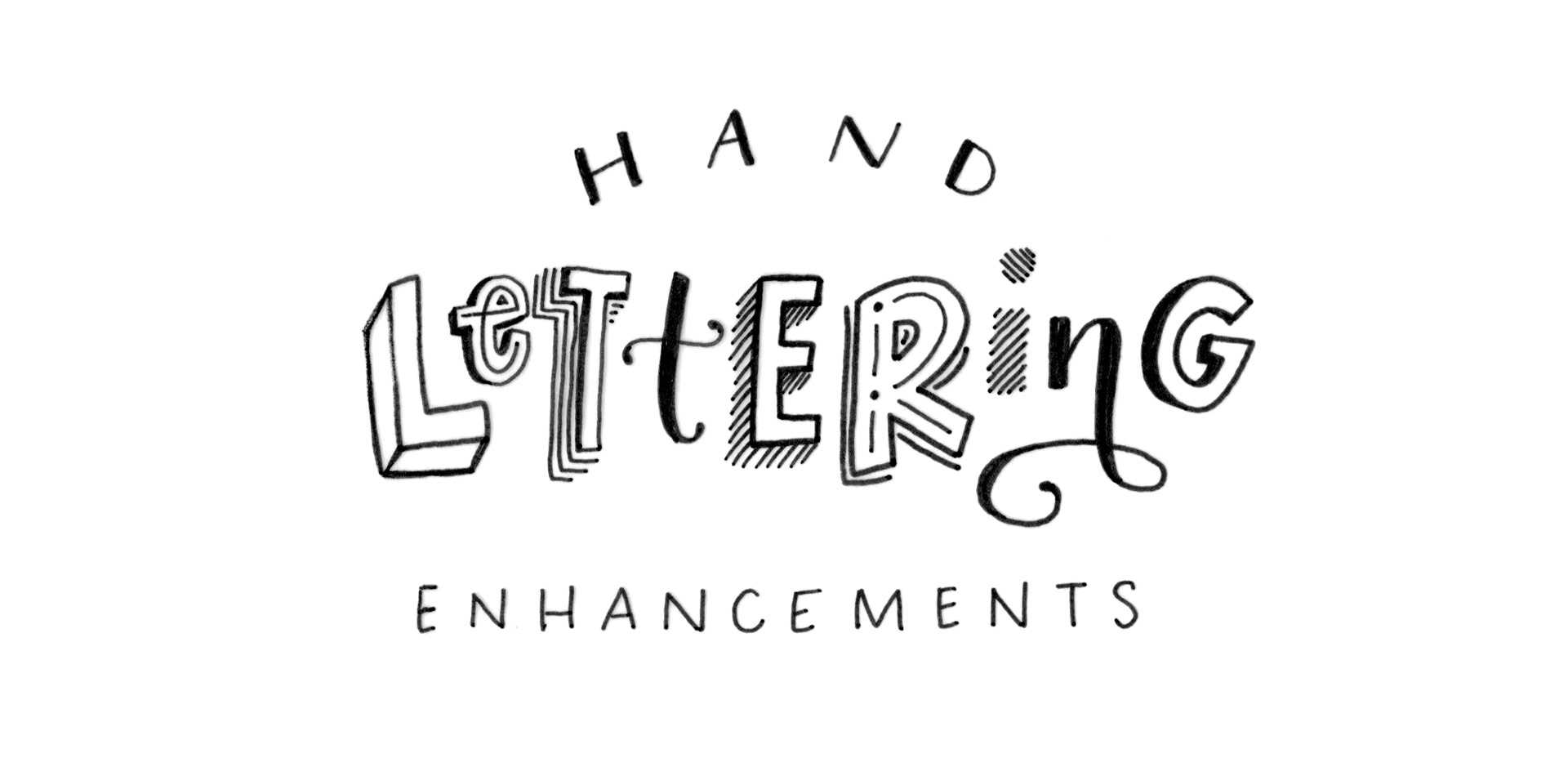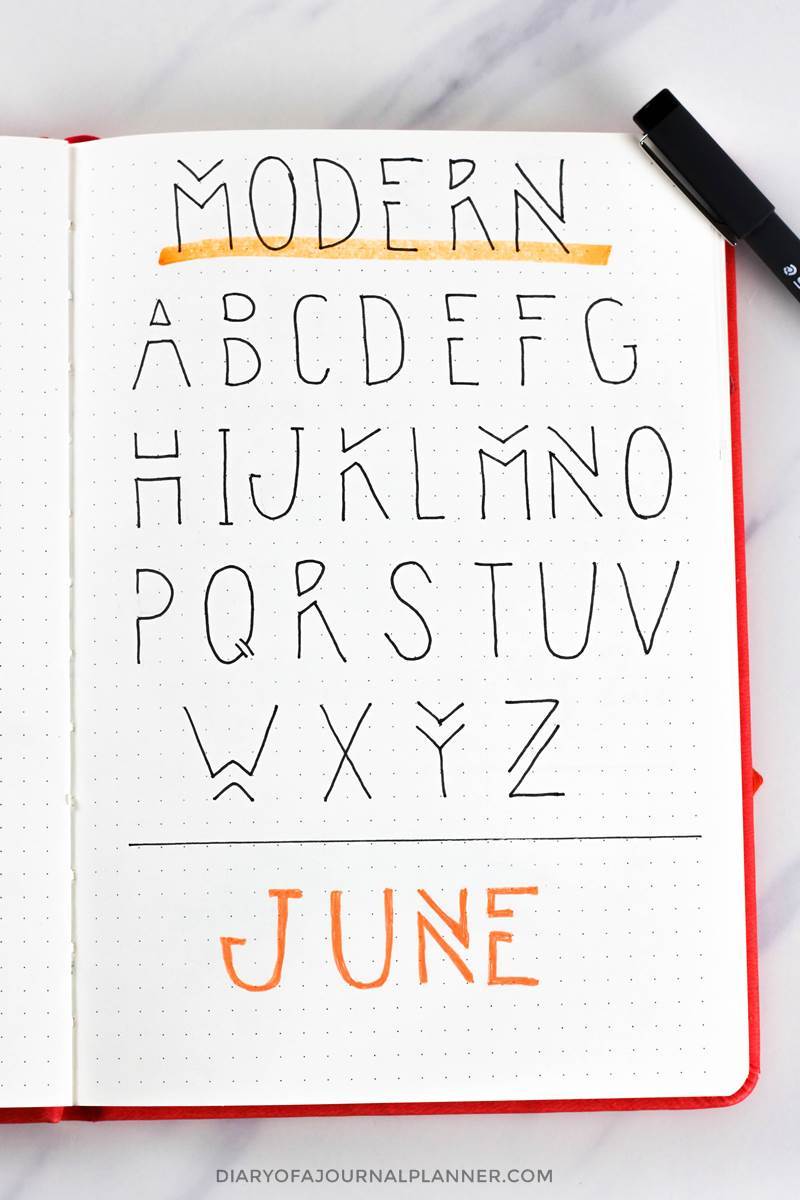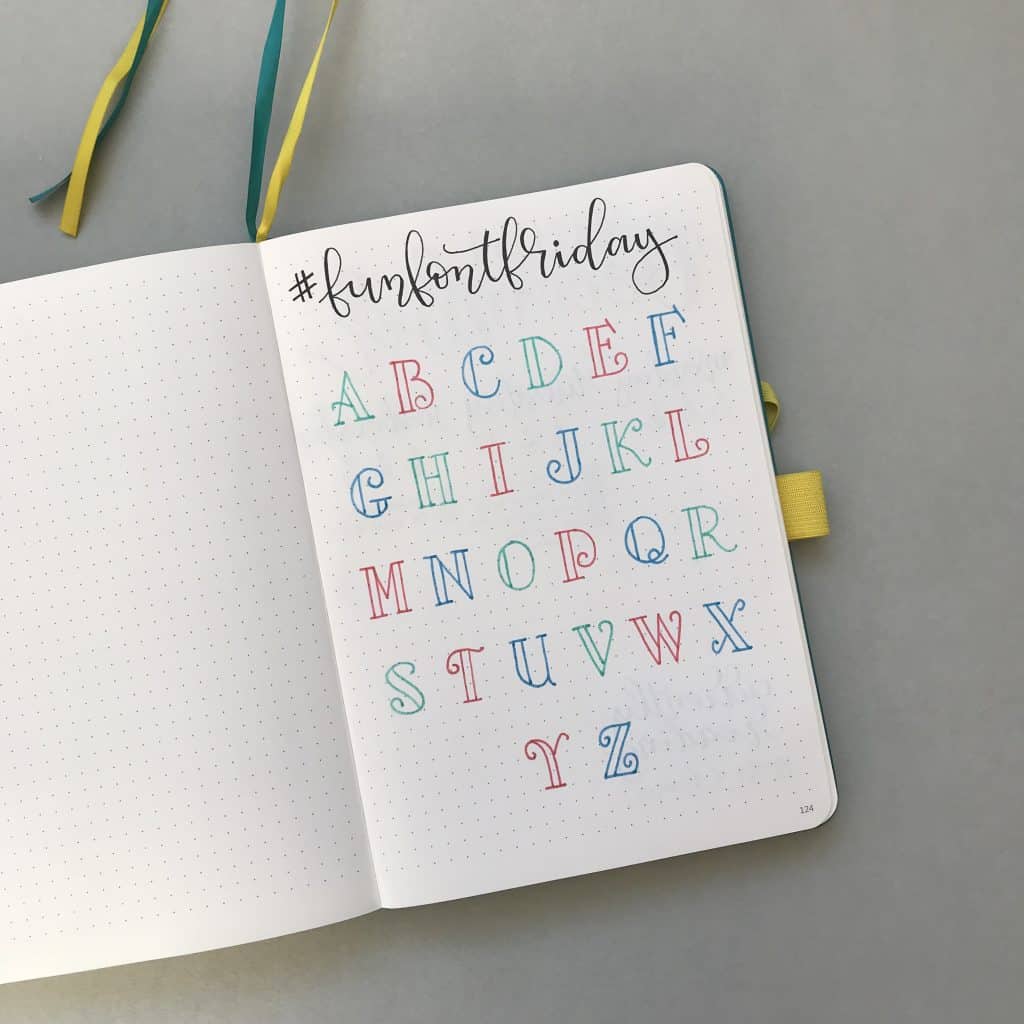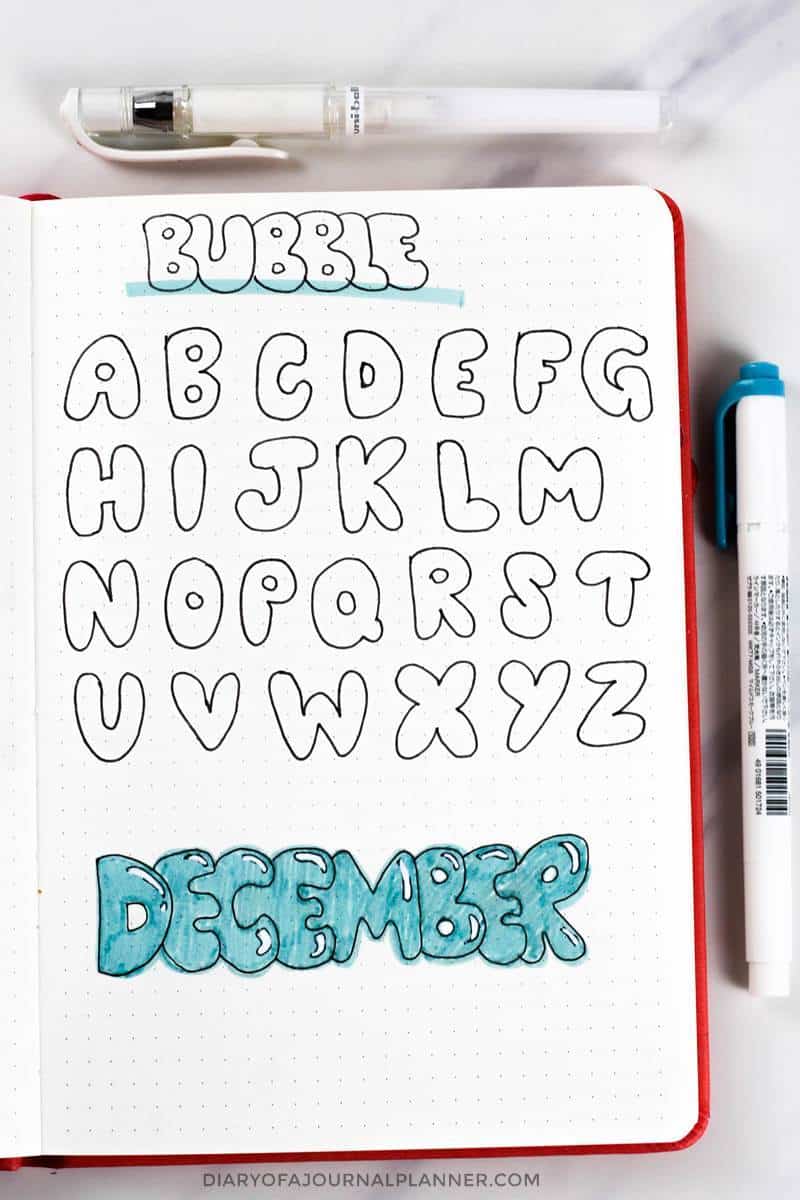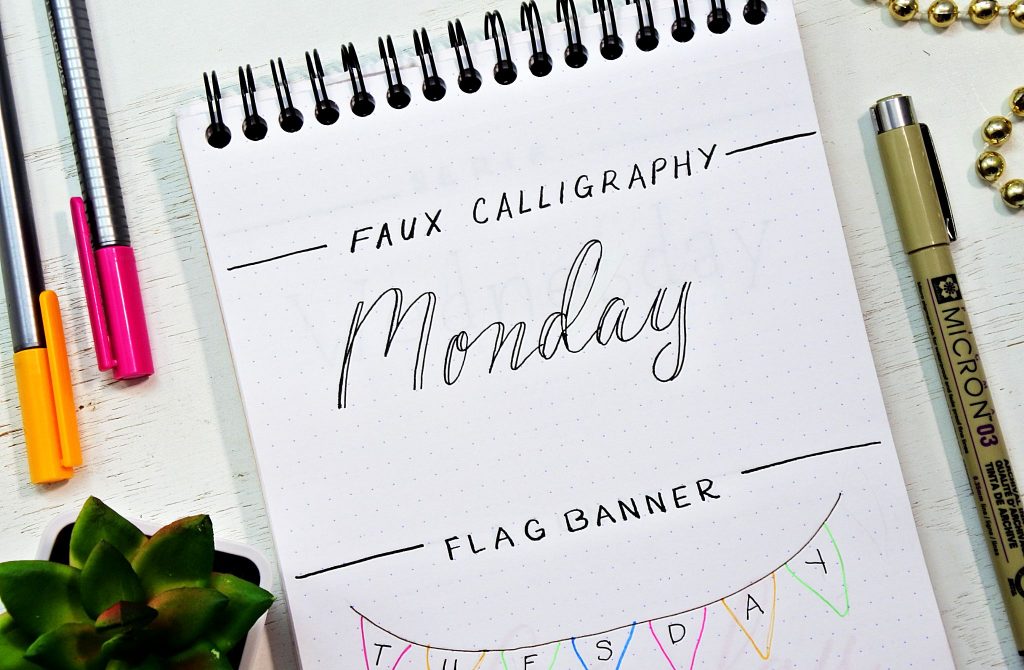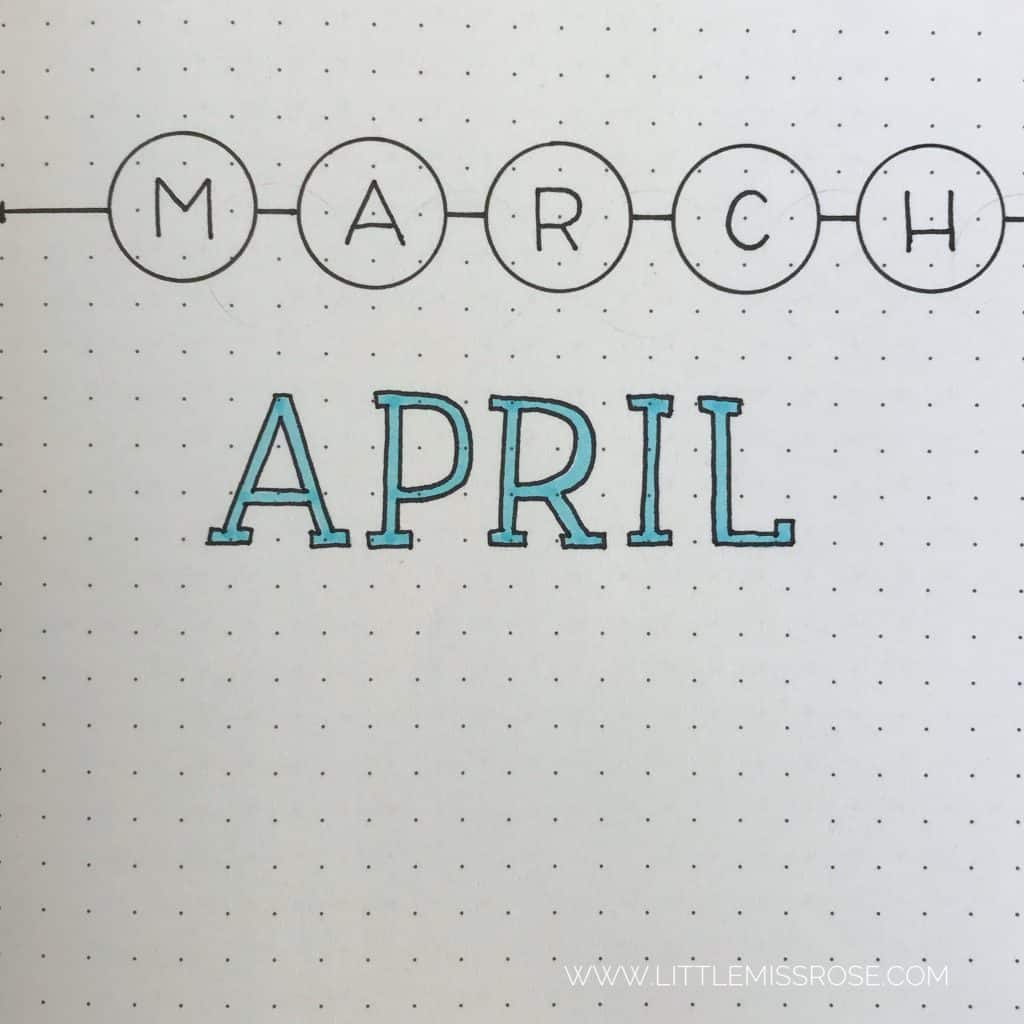
Our handwritten fonts are an opportunity to address personal and loving issues. Handwriting fonts are good for logos headers titles notes but not for regular text.
When I first began sketching and art journaling hand lettering came easily to me. I love nice handwritingLearn how to improve your handwriting fine motor skills. Regardless of any natural skill the mantra holds true.